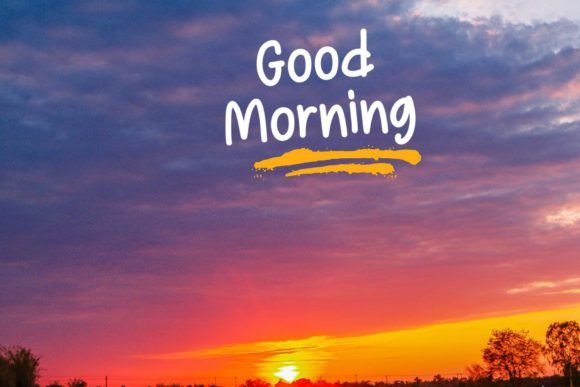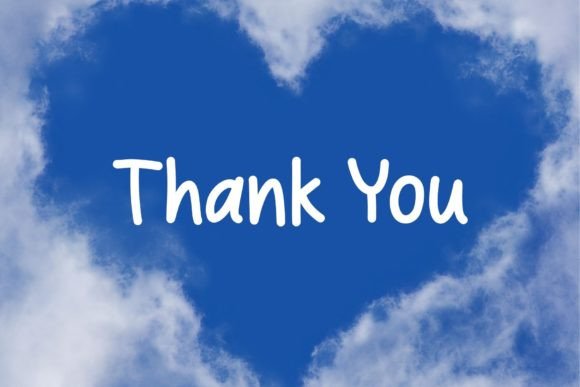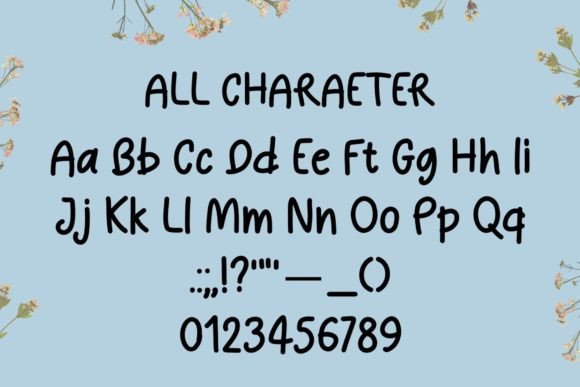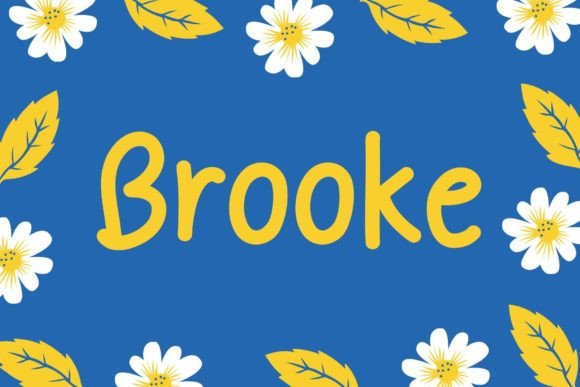
Introducing Brooke Font: The Ultimate Modern Typeface for Bold Designs
In the world of typography, a good font can make all the difference in creating a lasting impression. For designers and crafters looking for a modern and stylish typeface to elevate their projects, look no further than the Brooke font. This sleek and contemporary font is designed to make a bold statement, adding a touch of sophistication and trendiness to any design.
What is Brooke Font?
The Brooke font is a versatile and modern typeface that boasts clean lines, elegant curves, and a sophisticated aesthetic. Its sleek letterforms are perfect for projects that demand a high level of professionalism and style. Whether you’re working on a branding campaign, logo design, packaging, or social media graphics, the Brooke font is an excellent choice.
Key Features of Brooke Font
- Modern and Stylish: The Brooke font features a contemporary design that is sure to turn heads. Its sleek lines and elegant curves make it perfect for projects that require a touch of sophistication.
- Versatile: This font is incredibly versatile and can be used for a wide range of design applications, from branding and logo design to packaging and social media graphics.
- Easy to Read: Despite its modern and stylish design, the Brooke font is incredibly easy to read, making it perfect for body text and headlines.
- Highly Customizable: The Brooke font comes with a range of customization options, allowing you to tailor it to your specific design needs.
Uses of Brooke Font
The Brooke font is an incredibly versatile typeface that can be used for a wide range of design applications. Here are just a few examples:
- Branding and Logo Design: The Brooke font is perfect for creating professional and stylish logos that make a lasting impression.
- Packaging Design: Add a touch of modernity and elegance to your packaging designs with the Brooke font.
- Social Media Graphics: The Brooke font is perfect for creating stylish and engaging social media graphics that are sure to grab attention.
- Web Design: Use the Brooke font to create modern and stylish websites that showcase your brand’s personality.
Tips for Using Brooke Font
Here are a few tips for getting the most out of the Brooke font:
- Pair it with Other Fonts: The Brooke font pairs well with a range of other fonts, so don’t be afraid to experiment and find the perfect combination for your design.
- Use it for Headlines and Body Text: The Brooke font is easy to read and perfect for both headlines and body text.
- Experiment with Colors: The Brooke font looks great in a range of colors, so don’t be afraid to experiment and find the perfect hue for your design.
| Font Name | Brooke Font |
| Author | MyFontsShop |
In conclusion, the Brooke font is a modern and stylish typeface that is perfect for designers and crafters looking to add a touch of sophistication and trendiness to their projects. Its sleek and contemporary letterforms make it perfect for a wide range of design applications, from branding and logo design to packaging and social media graphics. With its versatility, ease of use, and high level of customizability, the Brooke font is an excellent choice for any designer looking to elevate their designs.